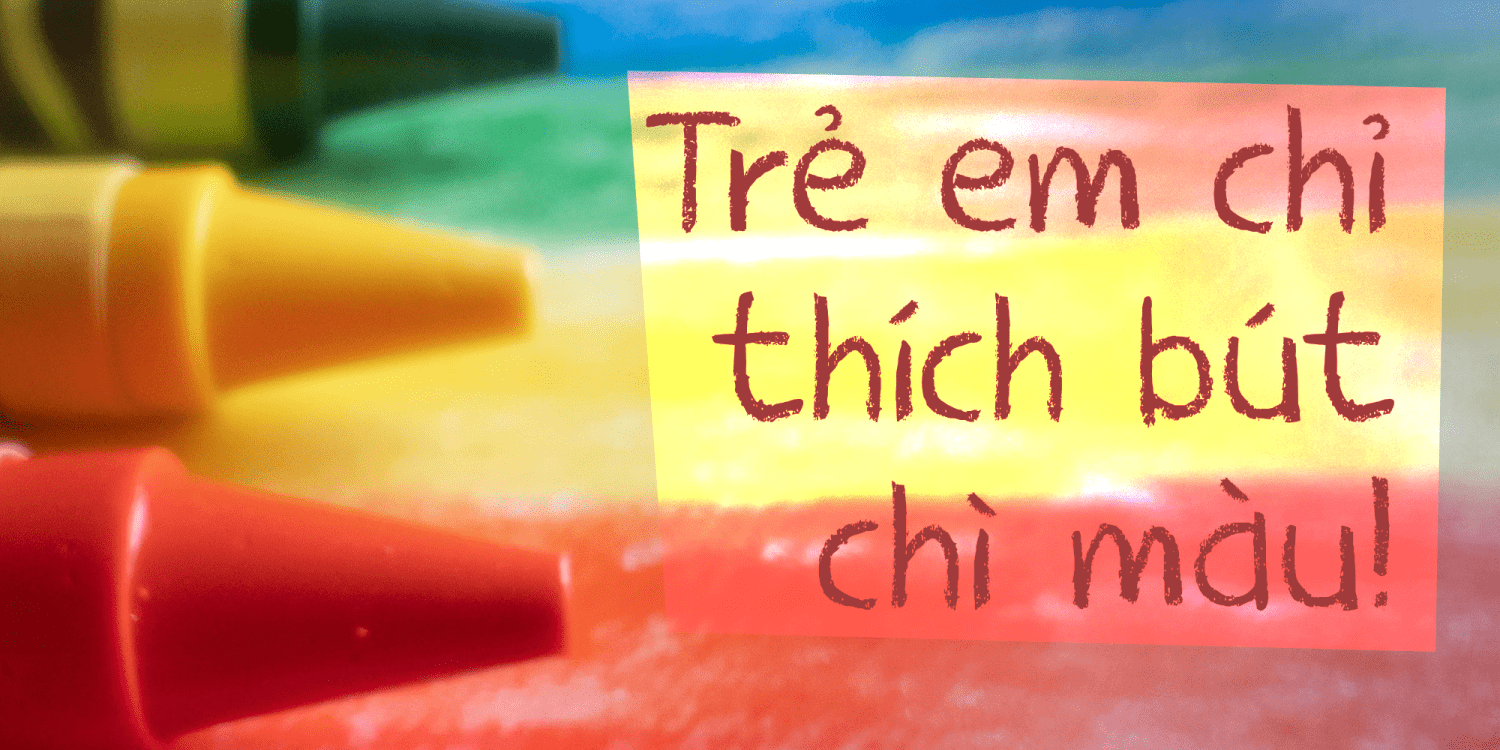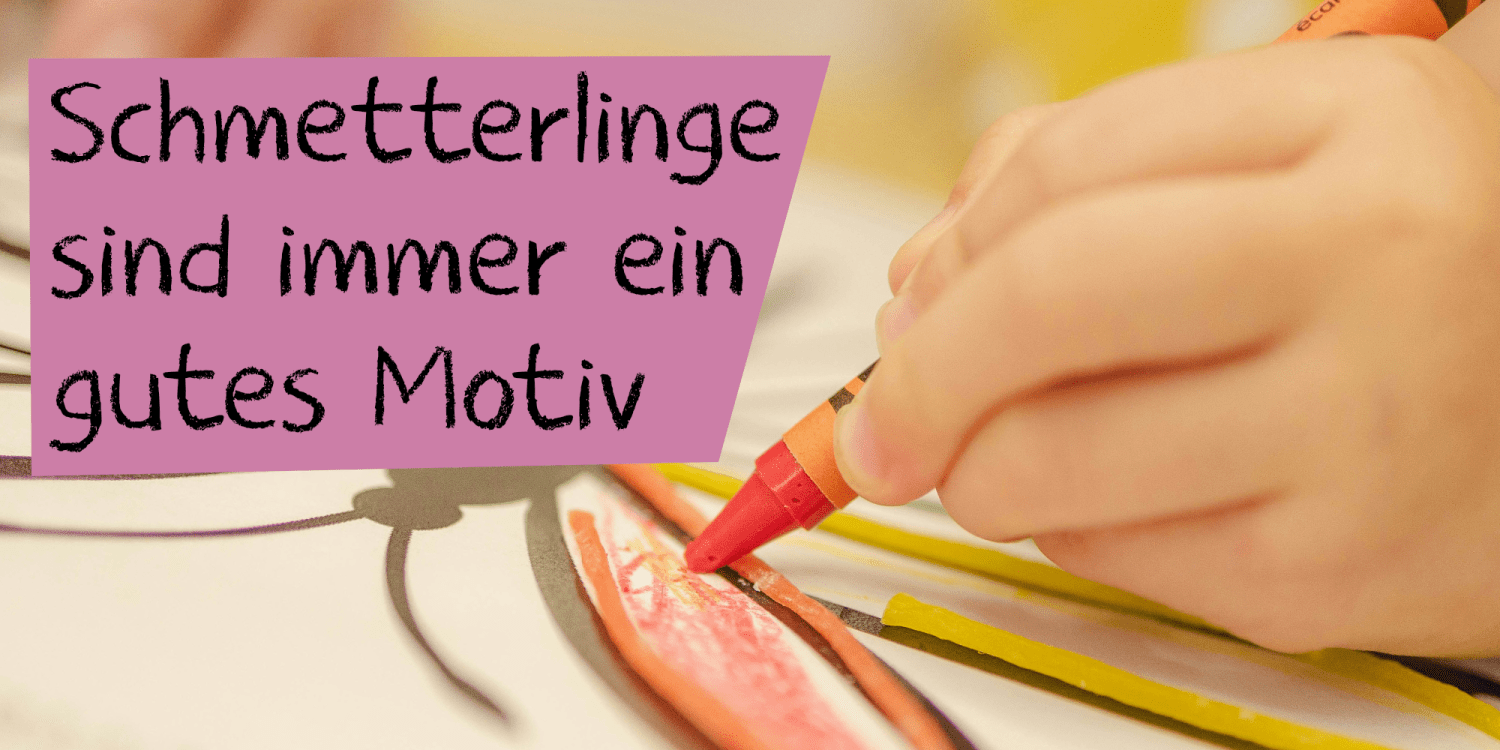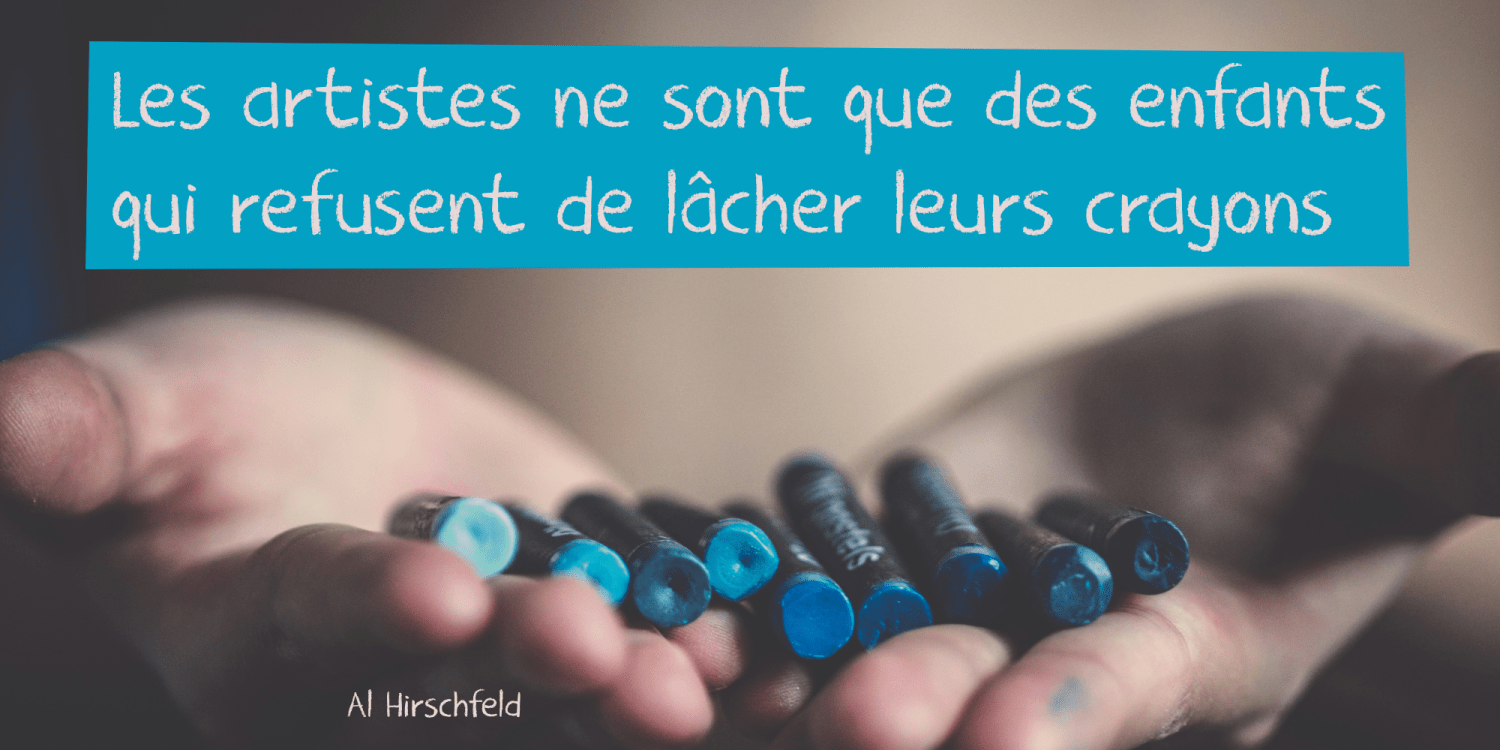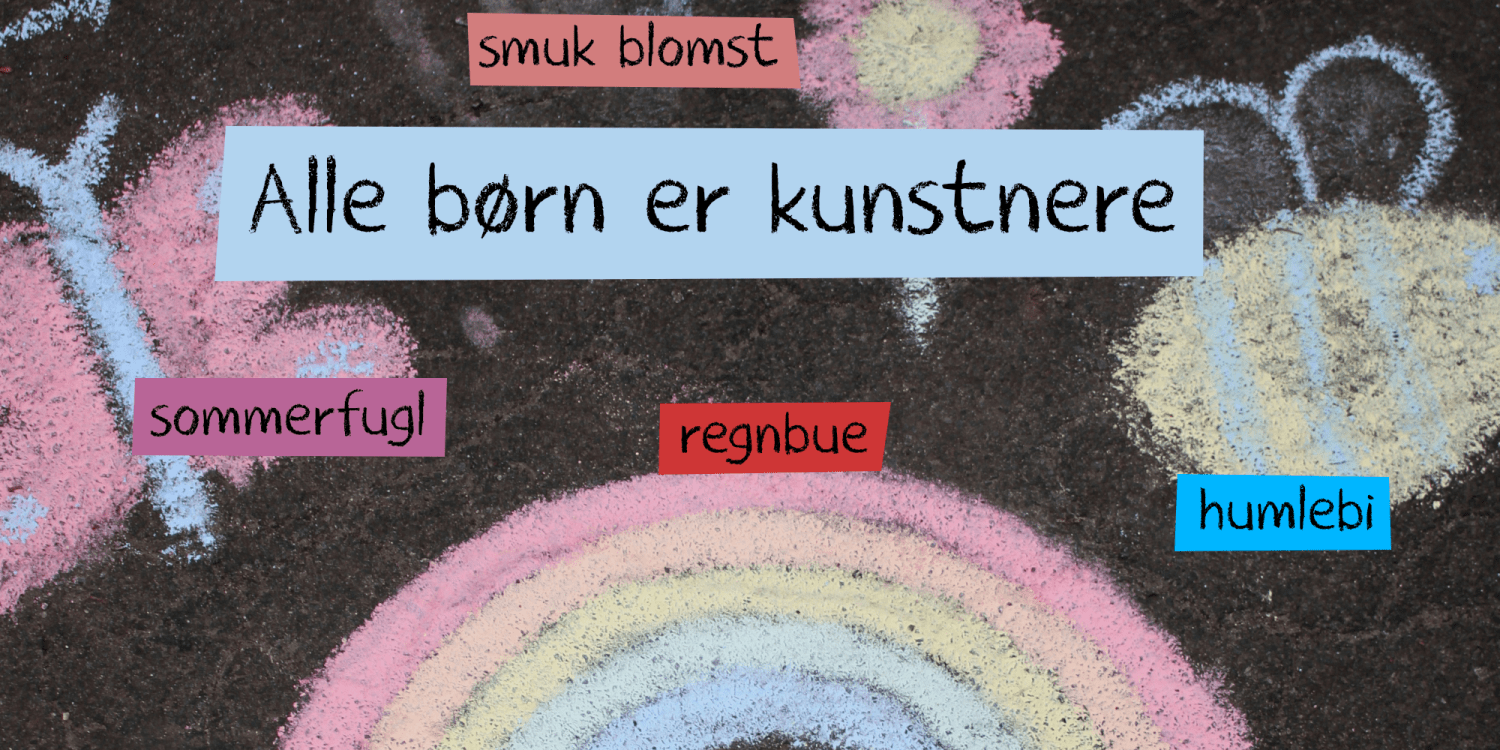
Back in 2011, I released a font called Crayon Crumble. As the name implies, I made it using a cheap and crumbling black crayon. It was an instant hit and ever since its release, it has been used for many, many, MANY books, games, toys, supermarket banners,…